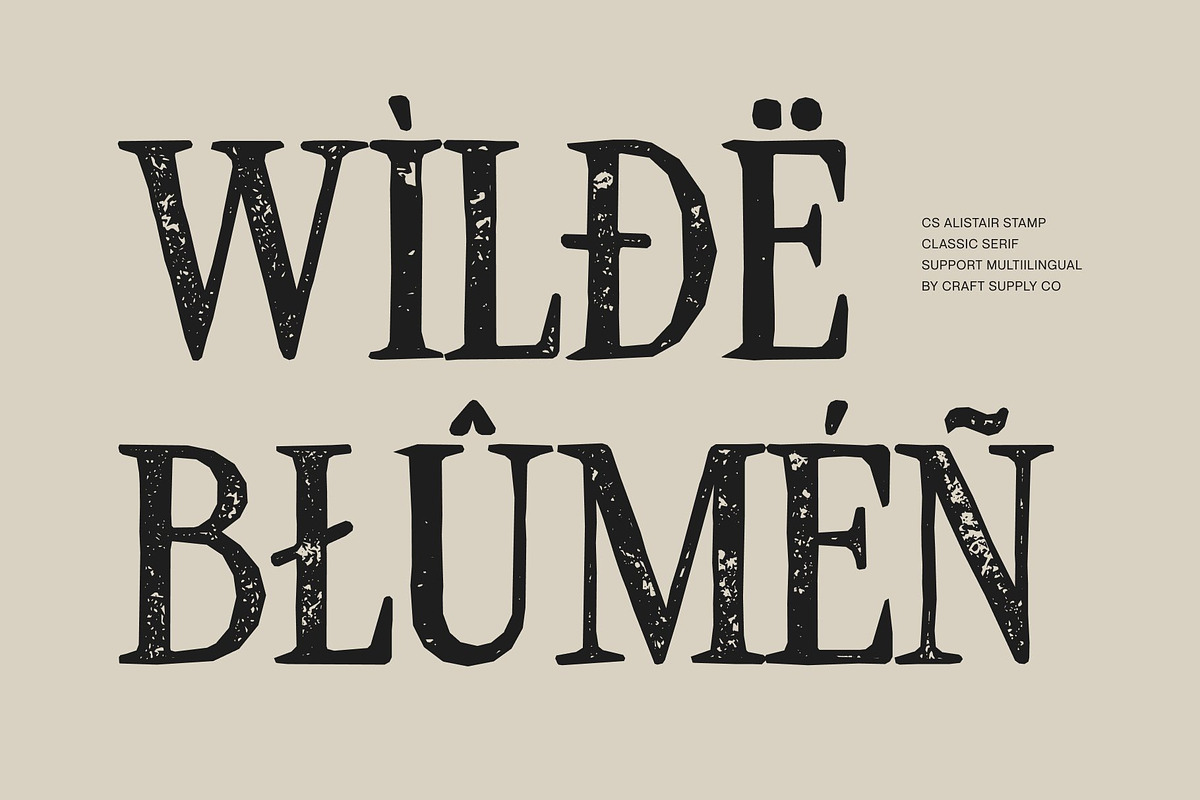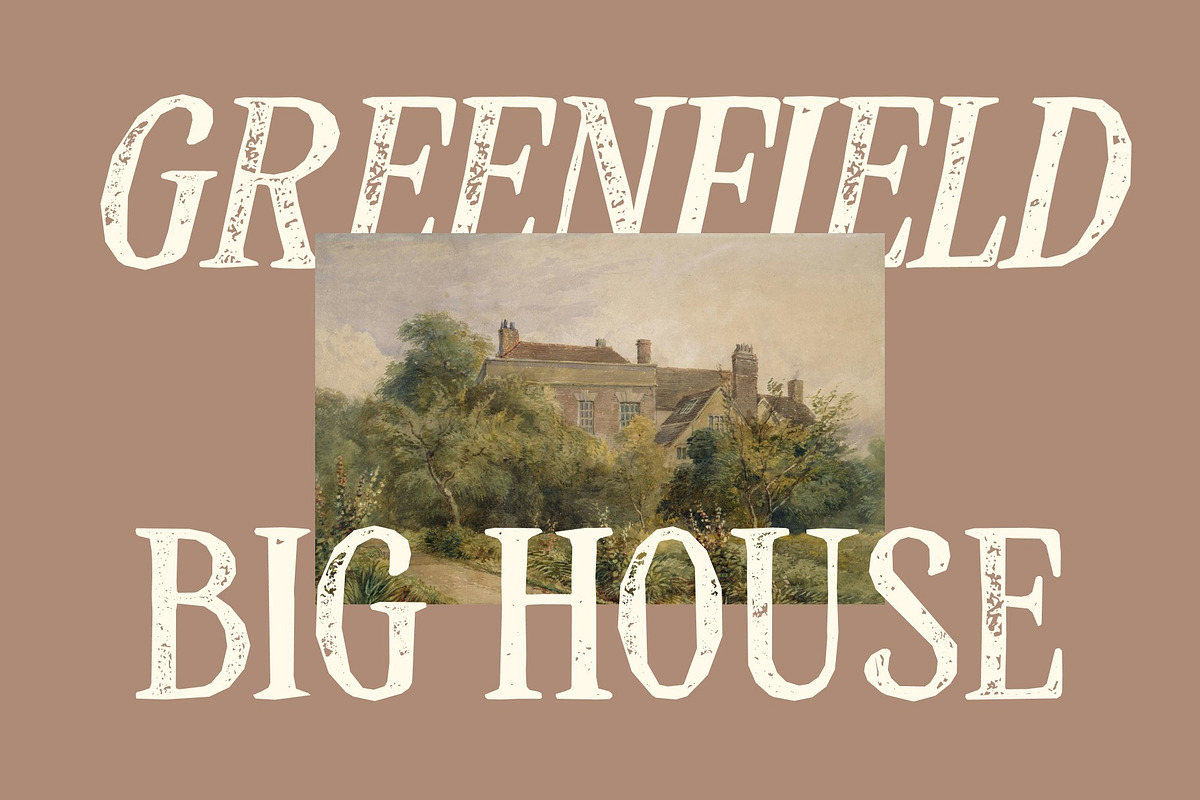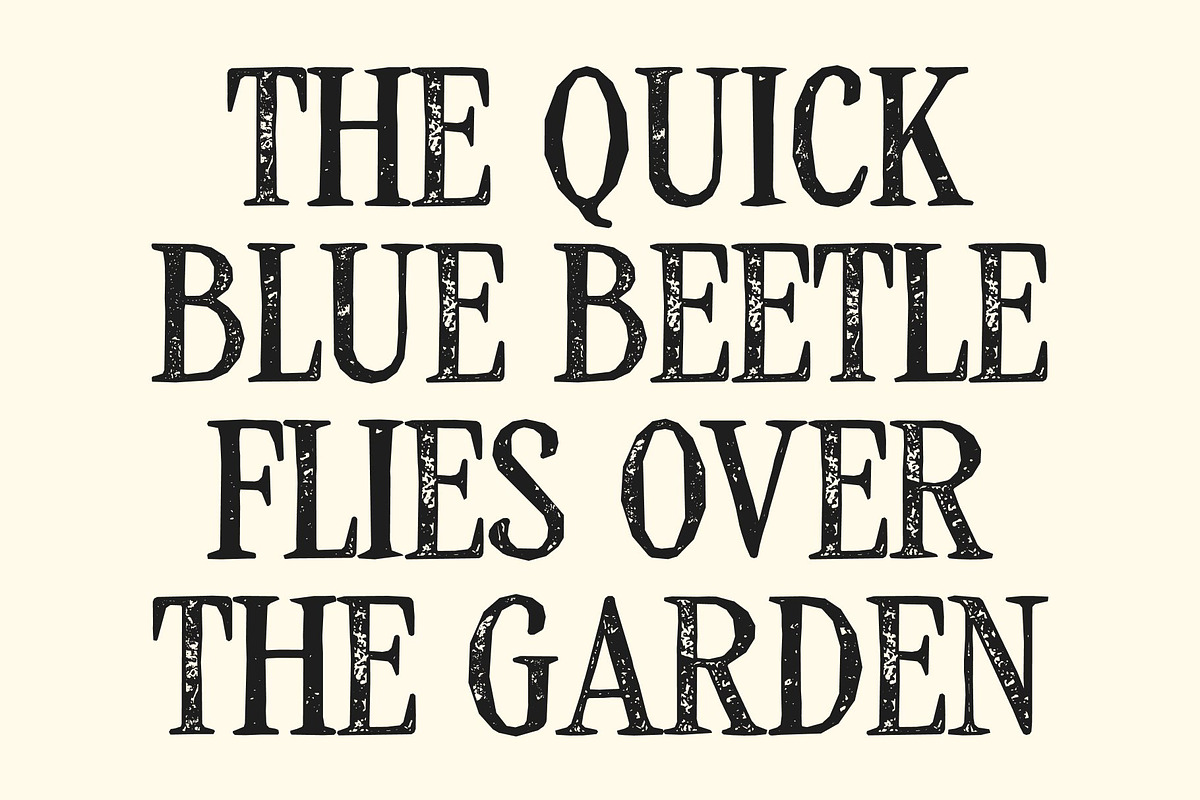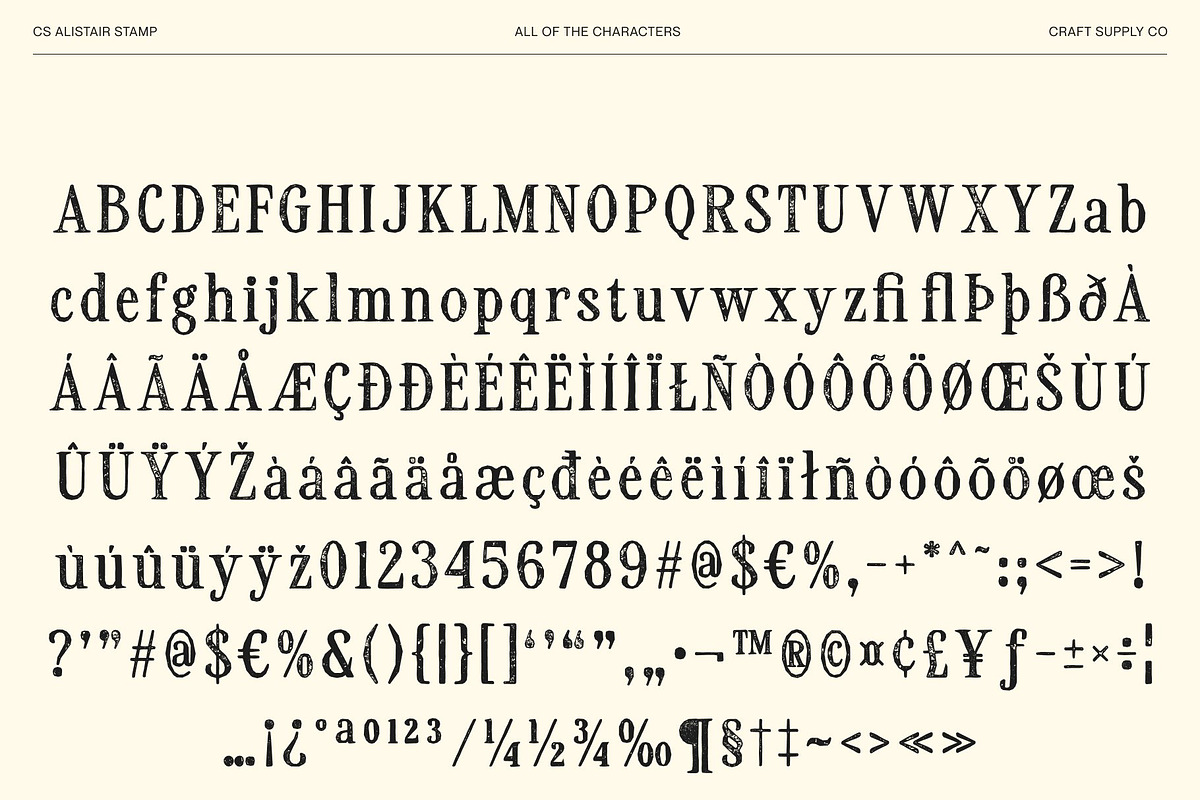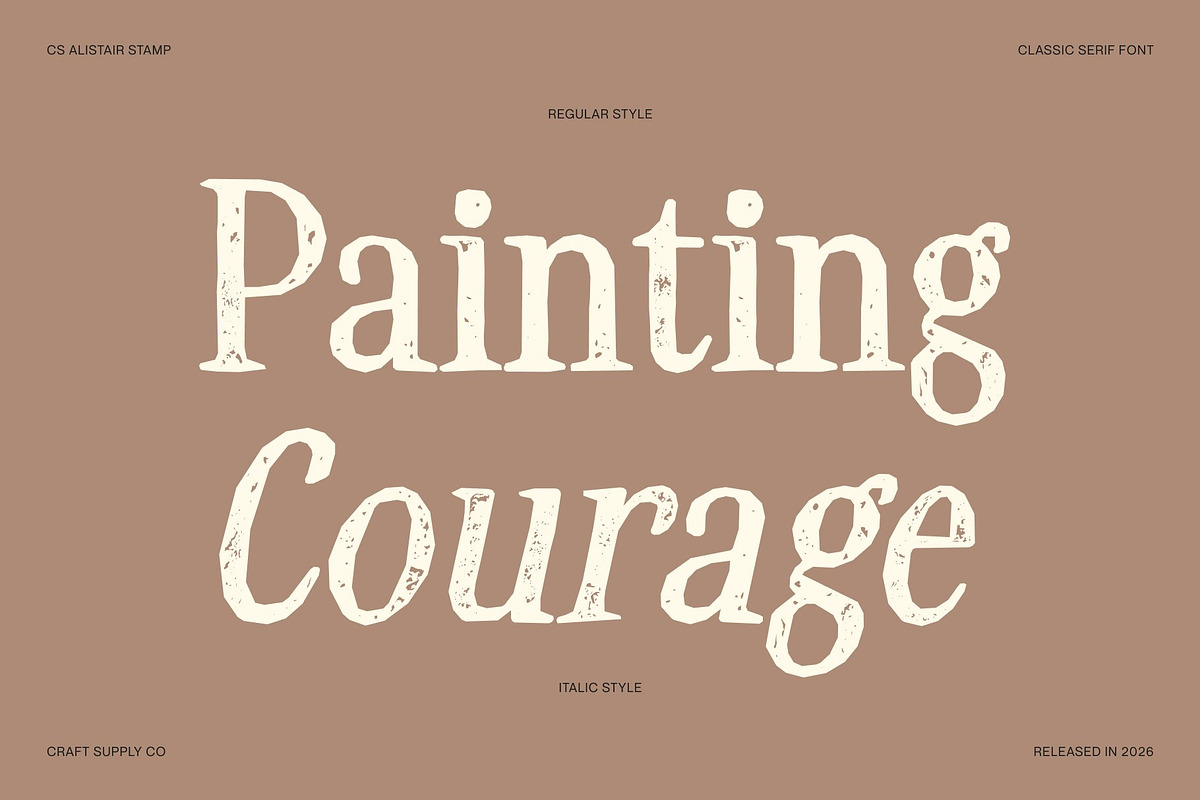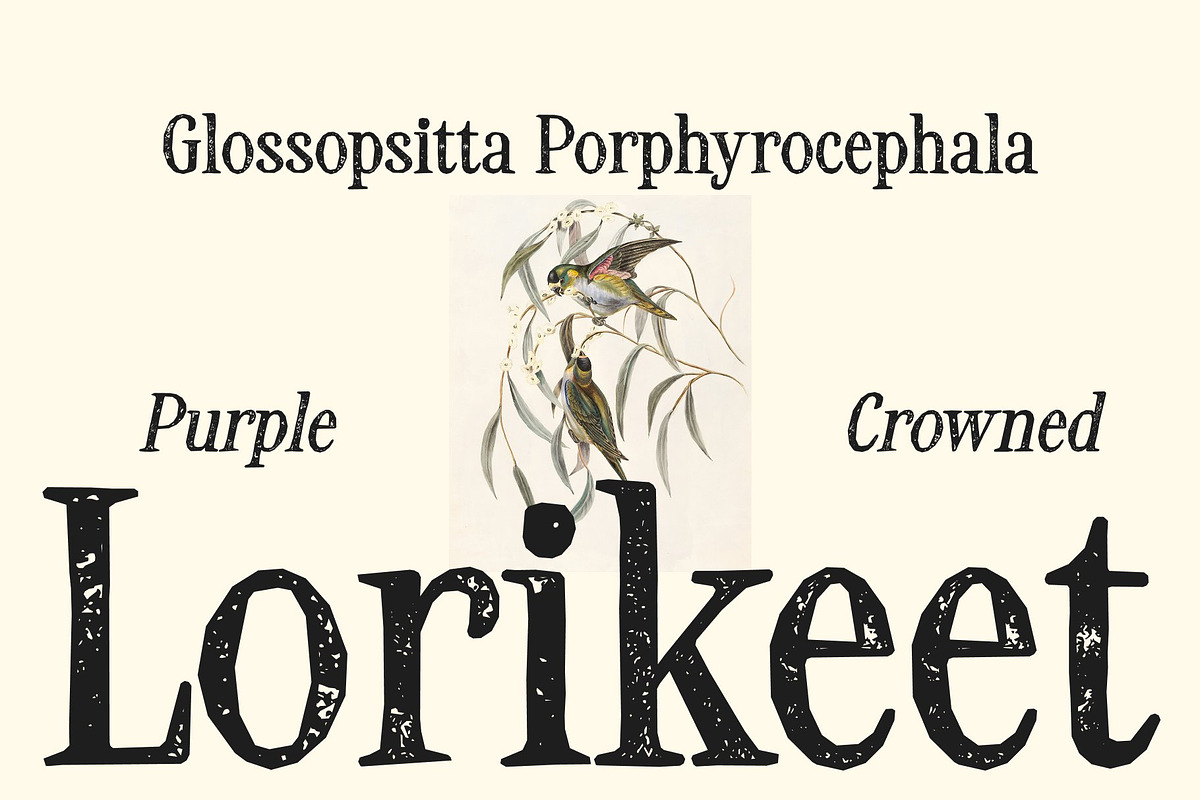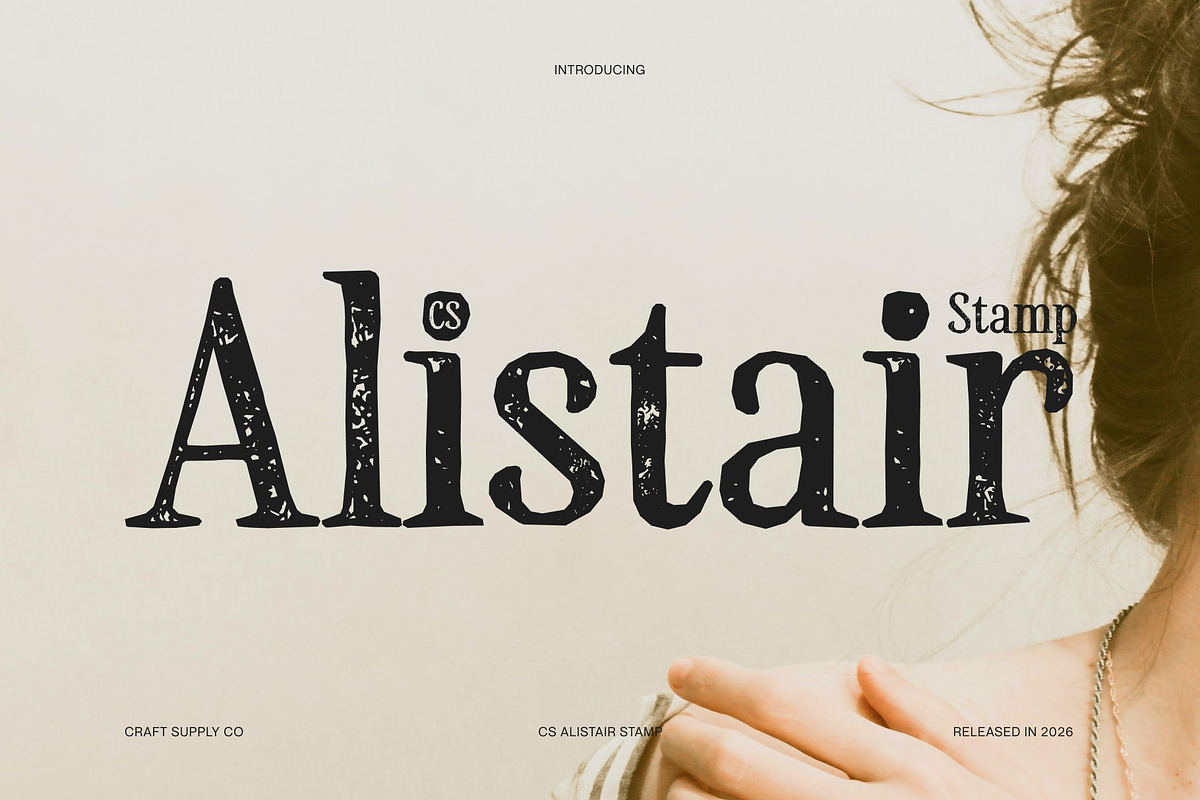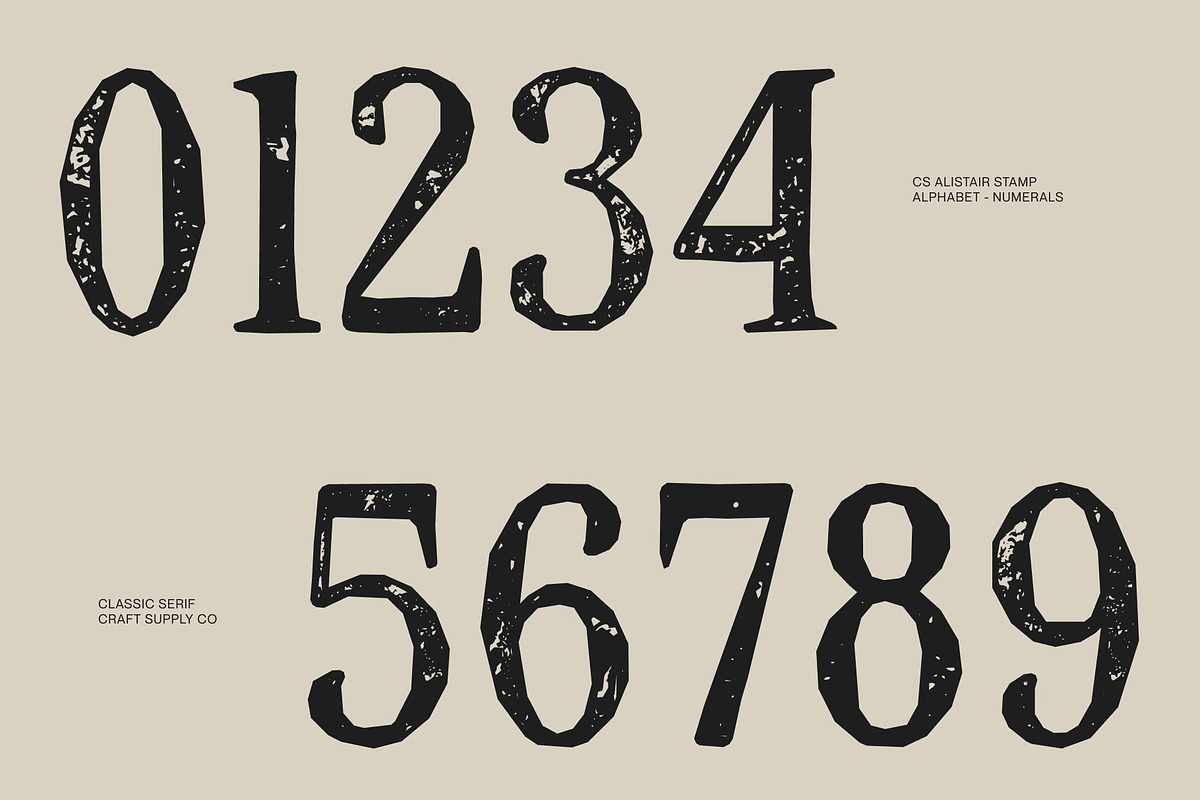
CS Alistair Stamp
CS Alistair Stamp – Classic Elegance with Vintage Character Clean Modern Serif with Textured Stamp Finish This is a modern serif font built on clean structure and contemporary refinement, enhanced with a subtle vintage stamp effect. Its sharp, well-balanced lines remain crisp and elegant, while the stamped texture introduces gentle wear, ink variation, and handcrafted depth. This fusion creates a typeface that feels polished yet nostalgic, precise yet expressive.
Timeless Serif Elegance with Artistic Texture Rooted in classic serif tradition, this font gains warmth and personality through its aged, stamped surface. The balanced contrast between slender stems and confident serifs is enriched by organic imperfections, evoking the charm of old print techniques while maintaining a modern typographic voice.
Refined Versatility for Luxury and Editorial Design Perfect for luxury branding, editorial layouts, fashion identities, and premium packaging, this font elevates visual storytelling with understated sophistication. The vintage texture adds an artistic, tactile quality that enhances high-end designs without overpowering their elegance.
Modern Precision with an Old-Design Soul Whether used in logos, headlines, or refined marketing materials, this font delivers professional clarity paired with timeless character. It’s an ideal choice for designers seeking a serif font that combines modern luxury, classic elegance, and the expressive beauty of vintage stamp typography.